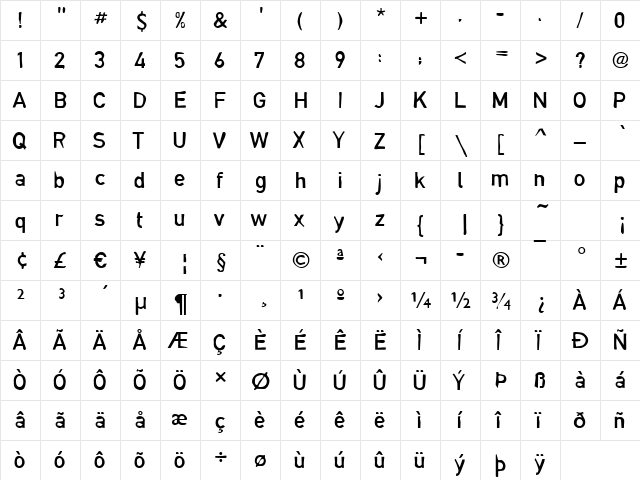
Dirty14 Bold
Design Context for Dirty14 Typeface
Dirty14 is a composed and adaptable typeface that performs quietly and consistently across a wide range of design contexts. Its bold stroke weight gives it real presence on the page.